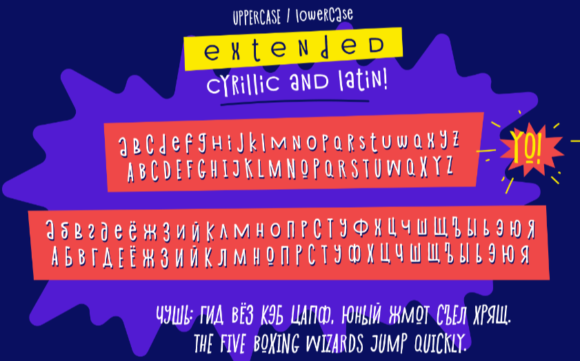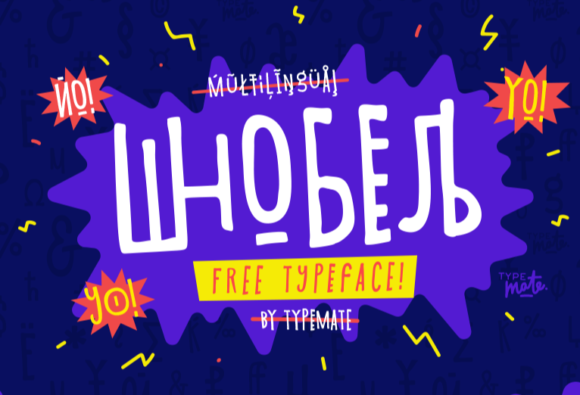
The Shnobel is a very emotional, mind-blowing, odd, wild, funny, extraordinary font! It can be used for every design which needs a fun and playful typeface.